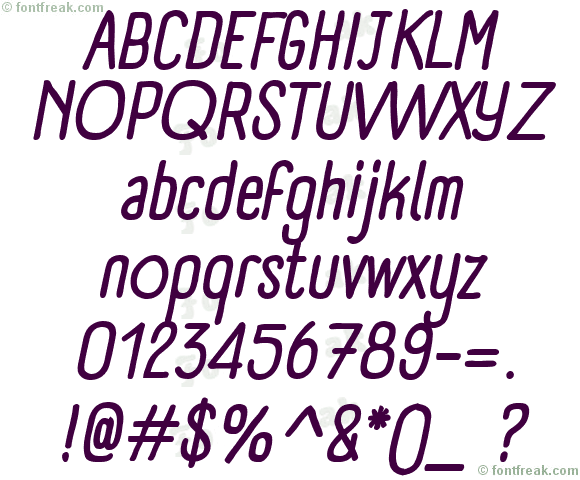
Panforte Condensed Bold Italic
Panforte Condensed Bold Italic is a striking display font that captures attention with its unique blend of modernity and elegance. Developed by the talented team at kmzero, this font stands out in the condensed category, making it an ideal choice for projects that require a bold statement without overwhelming the design. The font features a distinct stroke weight that balances strength and refinement, along with a notable contrast that enhances its visual appeal. The italicized style adds a dynamic flair, making it perfect for conveying movement and energy.
This typeface is particularly well-suited for a variety of creative applications. Its bold presence makes it an excellent choice for eye-catching movie posters, where it can draw viewers in with its confident character. Additionally, Panforte Condensed Bold Italic works beautifully for restaurant menus, giving a contemporary feel that can enhance the dining experience. The font's unique style is also ideal for branding projects, allowing small business owners to create memorable logos and marketing materials that resonate with their target audience. Content creators will appreciate its versatility for social media graphics, ensuring that posts stand out in crowded feeds.
What truly makes this font stand out is its ability to blend boldness with elegance, making it suitable for both contemporary and classic designs. Whether you’re aiming to inspire, inform, or entertain, this font's unique characteristics will add a touch of sophistication to any project. Don’t miss the opportunity to explore the Panforte Condensed Bold Italic font free download for your next creative endeavor.